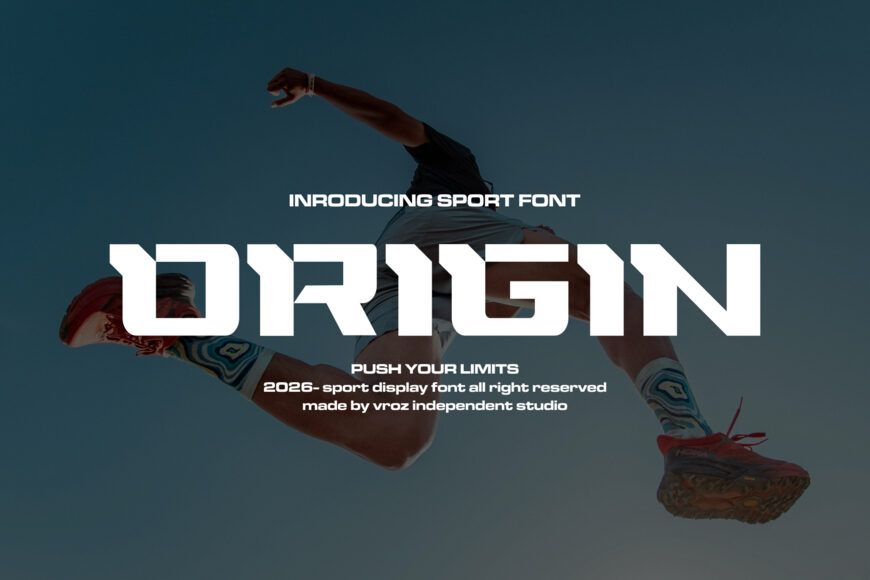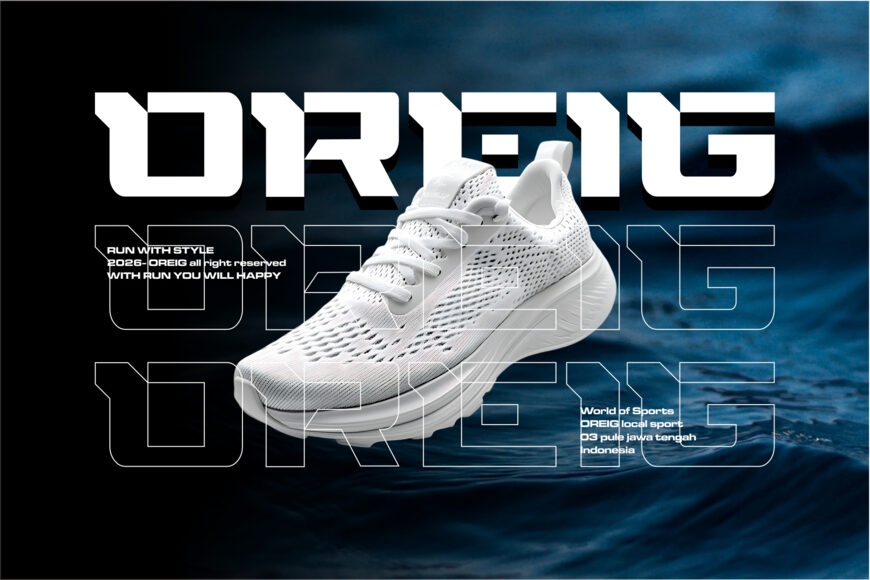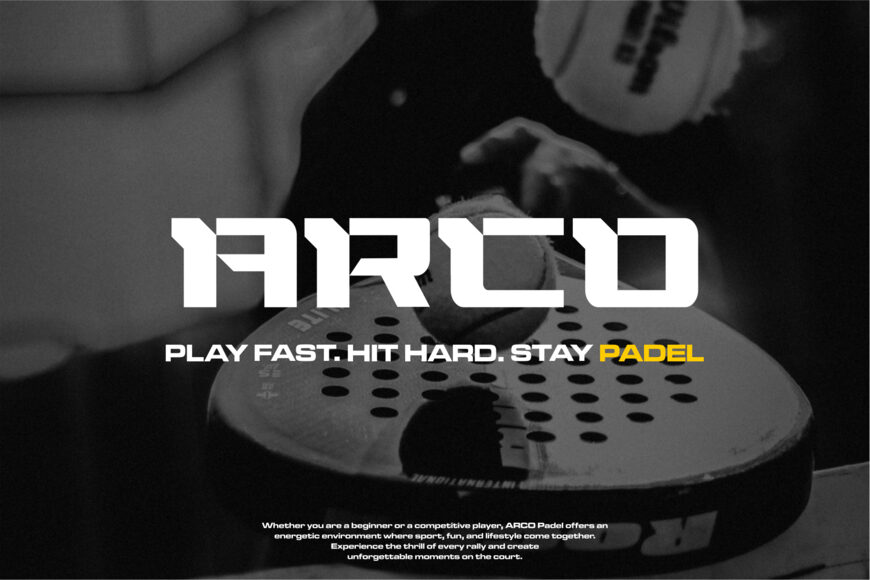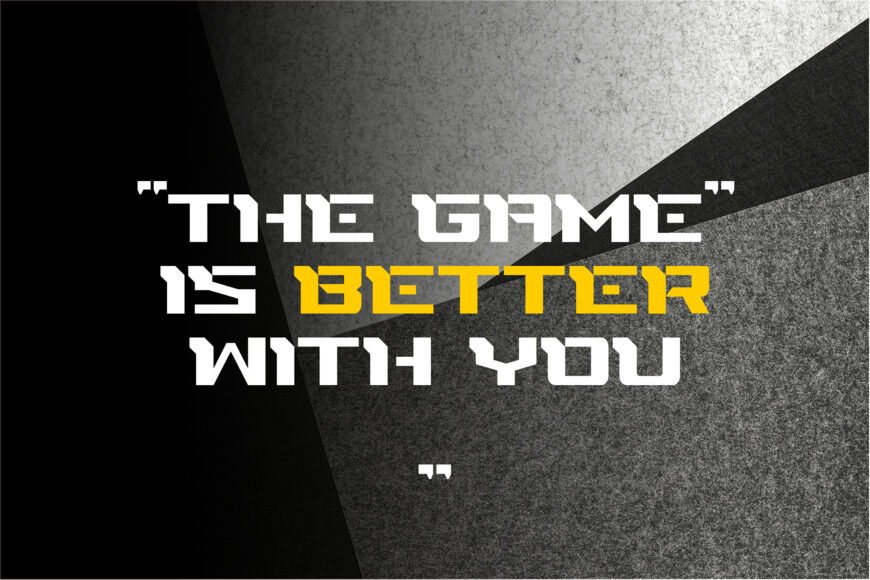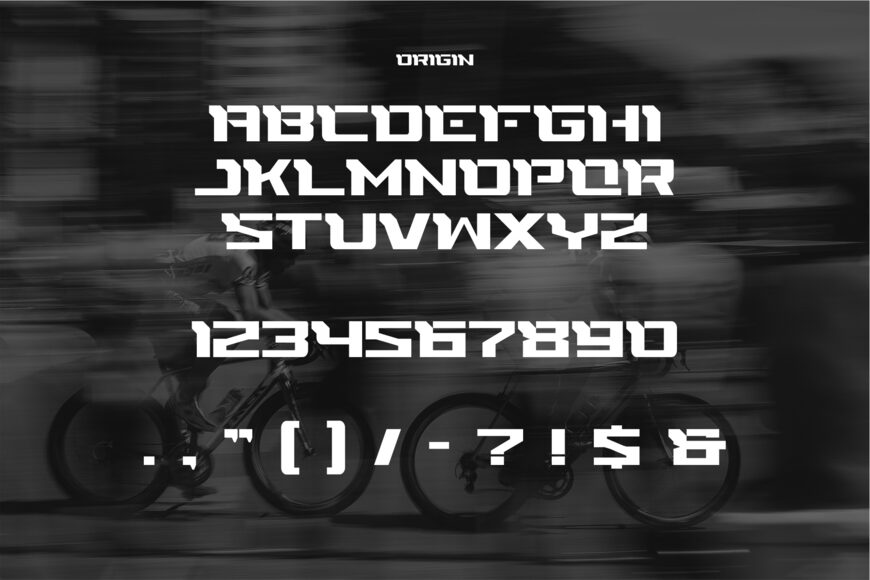
ORIGIN is a powerful sport display typeface designed to bring a confident and competitive character to your visual projects. Its bold construction, distinctive letterforms, and energetic presence make it a strong choice for modern sports-inspired designs.
Perfect for sports branding, team identities, athletic campaigns, gym graphics, racing projects, football, basketball, esports, jerseys, posters, merchandise, logos, and promotional content.